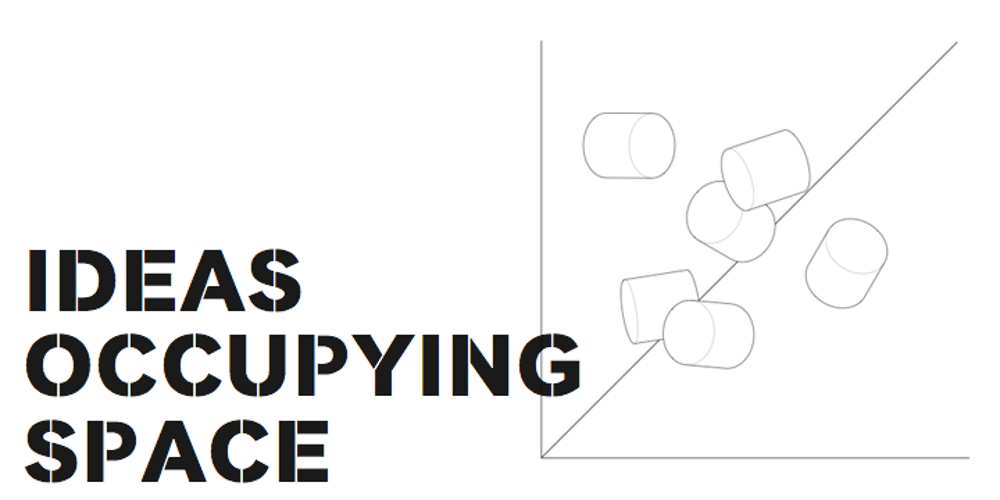
Clobber Grotesk
Clobber Grotesk font
Clobber Grotesk Font Family was designed by Ian Lynam and published by Wordshape. Clobber Grotesk contains 11 styles and family package options. Clobber Grotesk is a grotesk typeface family designed for high readability. It includes a range of weights and a stencil variant. The terminals of the letterforms are slightly flared in order to increase legibility.